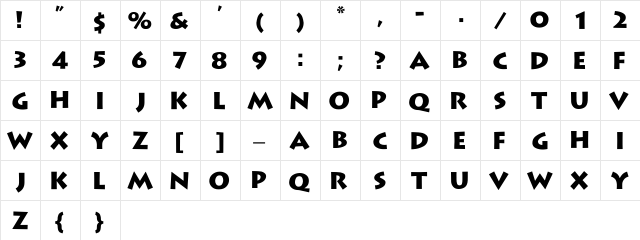
Shawnee Regular Font Preview
Shawnee Regular
Design Context for Shawnee Typeface
Shawnee offers clean, dependable letterforms without strong stylistic allegiance, making it a practical choice for designers who need flexibility.
Pro Tip: Pair Shawnee with a font of contrasting weight or personality to build a more expressive typographic hierarchy.